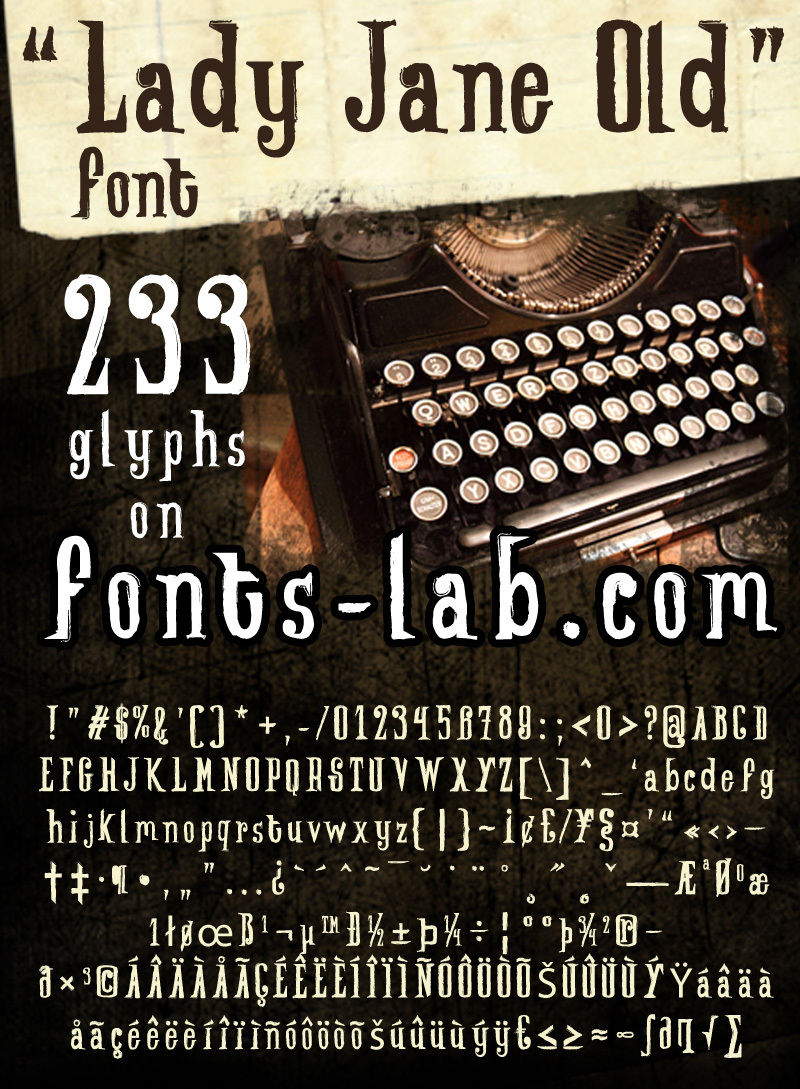
Lady Jane Old is a free eroded display font with tall, uneven letters and a sharp, theatrical silhouette. Its narrow forms shift between swollen curves and knife-thin strokes, with chipped edges, scratches, and abrupt cuts that make the lettering look salvaged from an old printed poster, rather than a uniform overlay of wear.
As a distressed title treatment, it suits horror film posters, music packaging, fashion merchandise, and dark editorial covers, especially when the artwork draws on decay, old machinery, or damaged print. Its clearest role is giving a stage or event poster the look of battered antique show lettering.